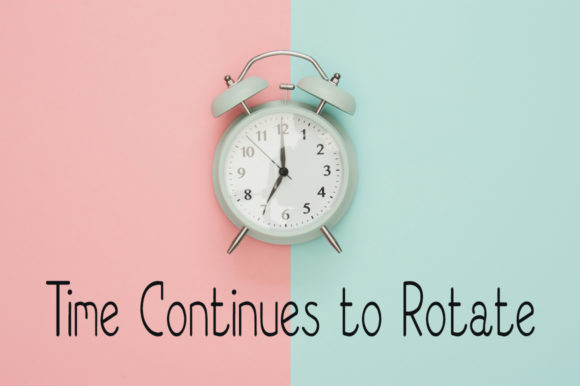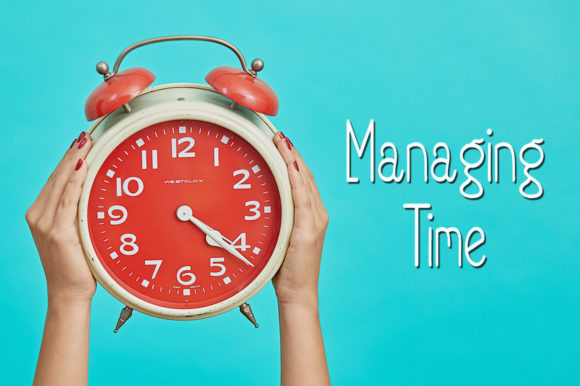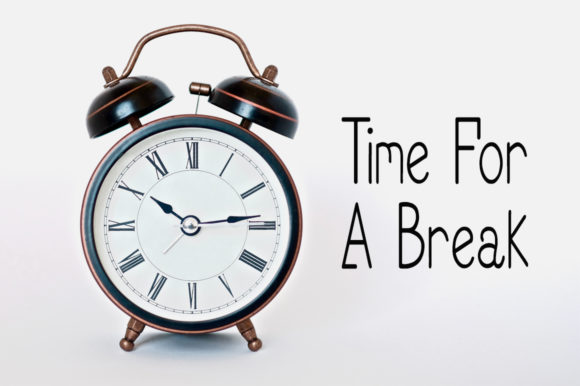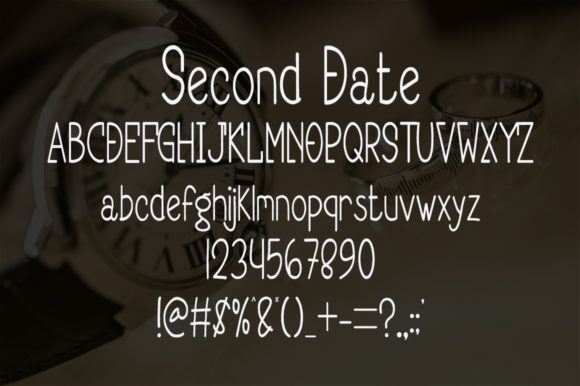
Introduction to Second Date Font Font
Fonts play a crucial role in design, and the Second Date Font font is a typeface that brings both character and versatility to any project. Whether you’re working on a branding project, a website, or a print design, the Second Date Font font offers a unique style that can elevate your work.
Second Date is a sweet and friendly handwritten font.
Key Features of Second Date Font Font
Why Choose Second Date Font Font?
The Second Date Font font is more than just a typeface – it’s a design tool that helps you communicate your message with style and clarity. Its unique character set and versatile design make it suitable for a wide range of applications, from elegant invitations to bold headlines.
With its carefully crafted letterforms and balanced proportions, the Second Date Font font ensures readability and visual appeal across all mediums.
What makes Second Date Font font special?
The Second Date Font font stands out with its unique design, exceptional readability, and versatility across various design applications.